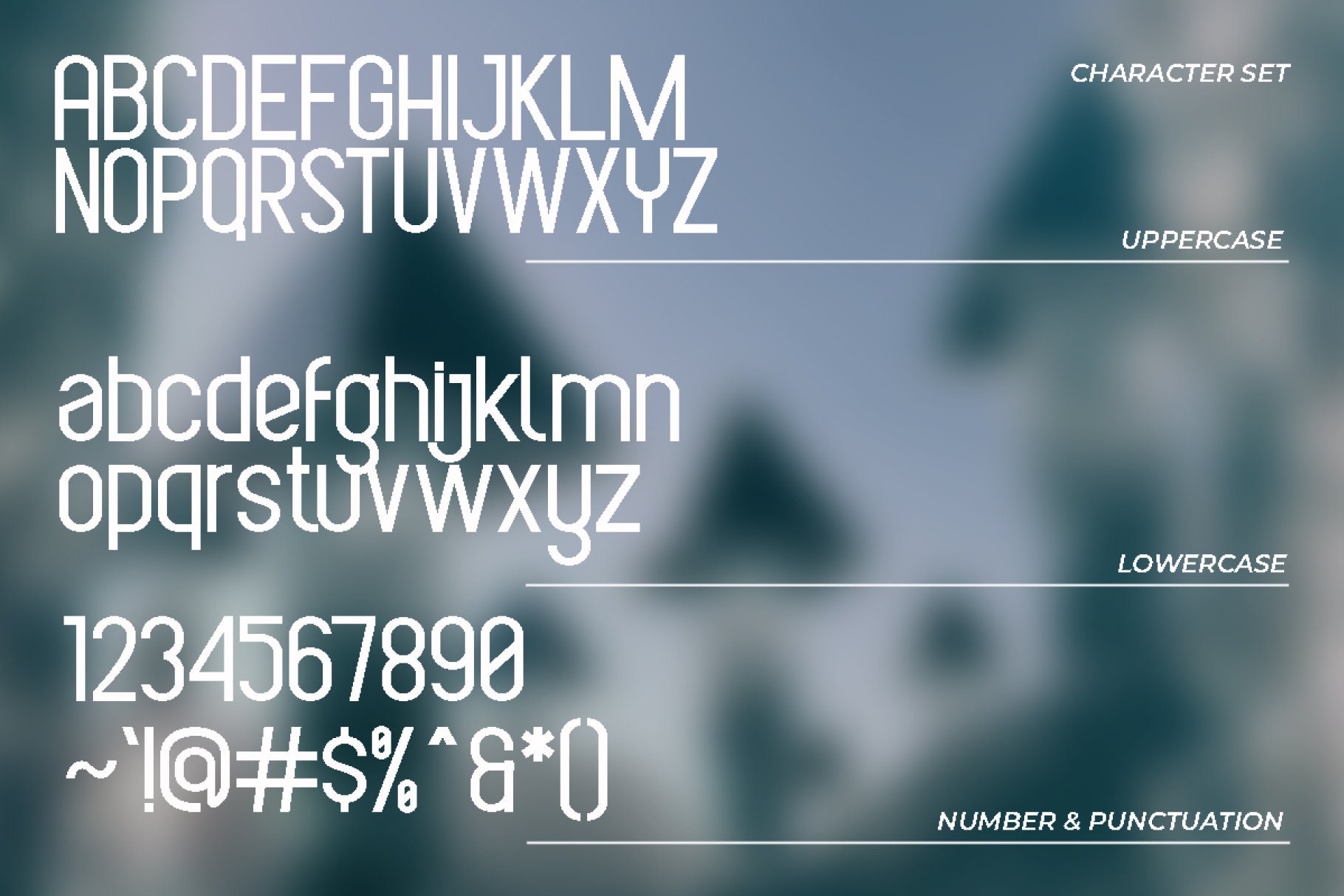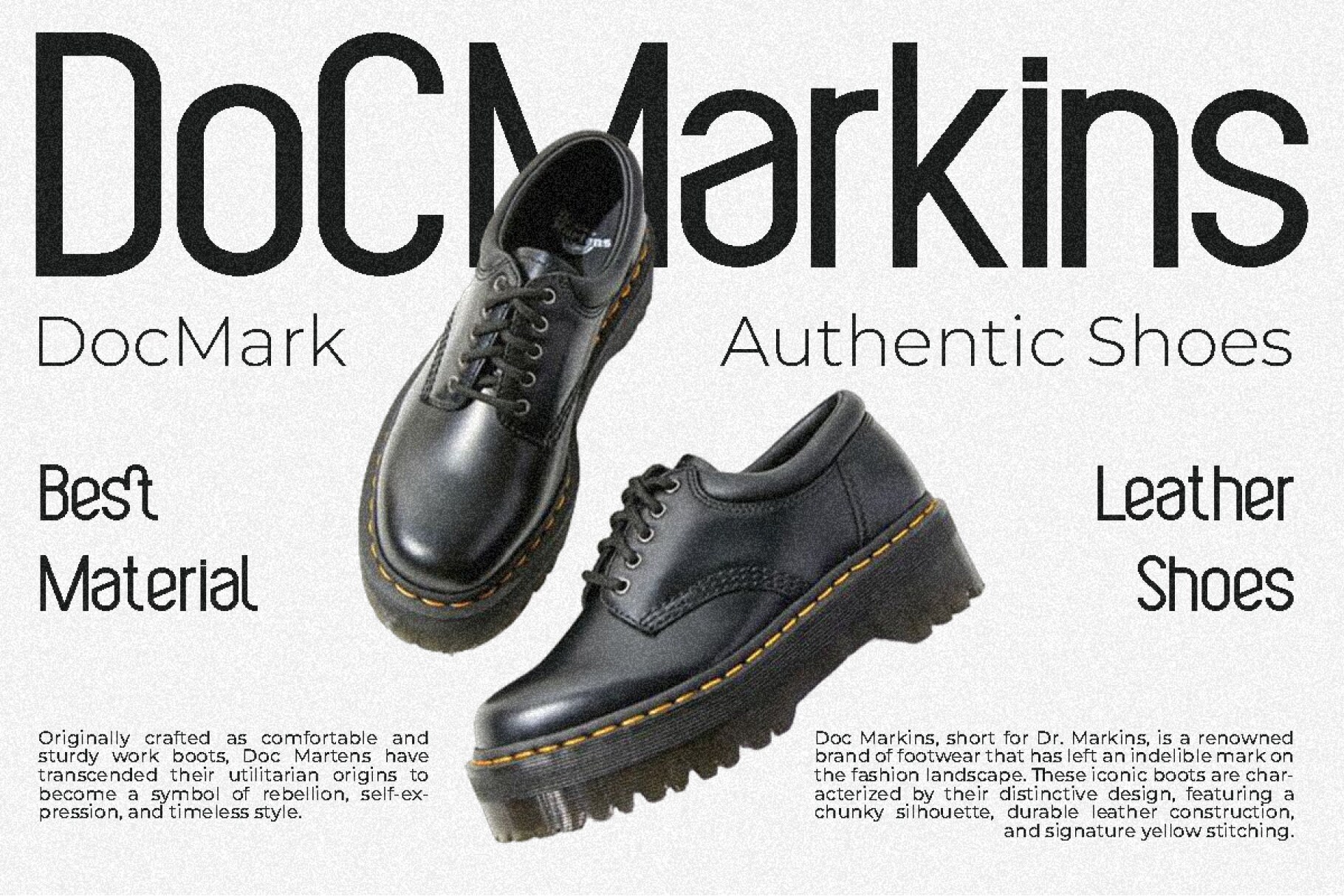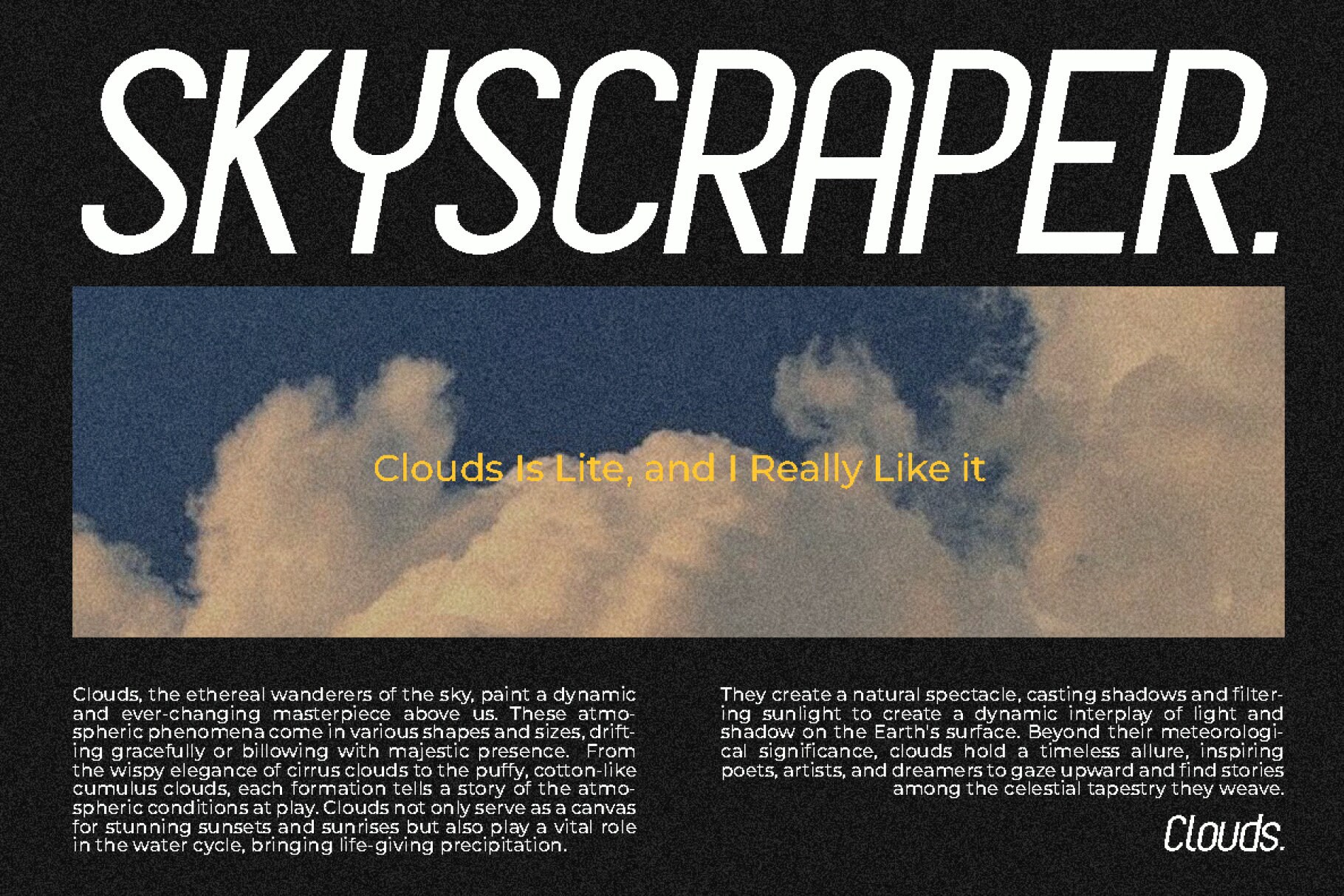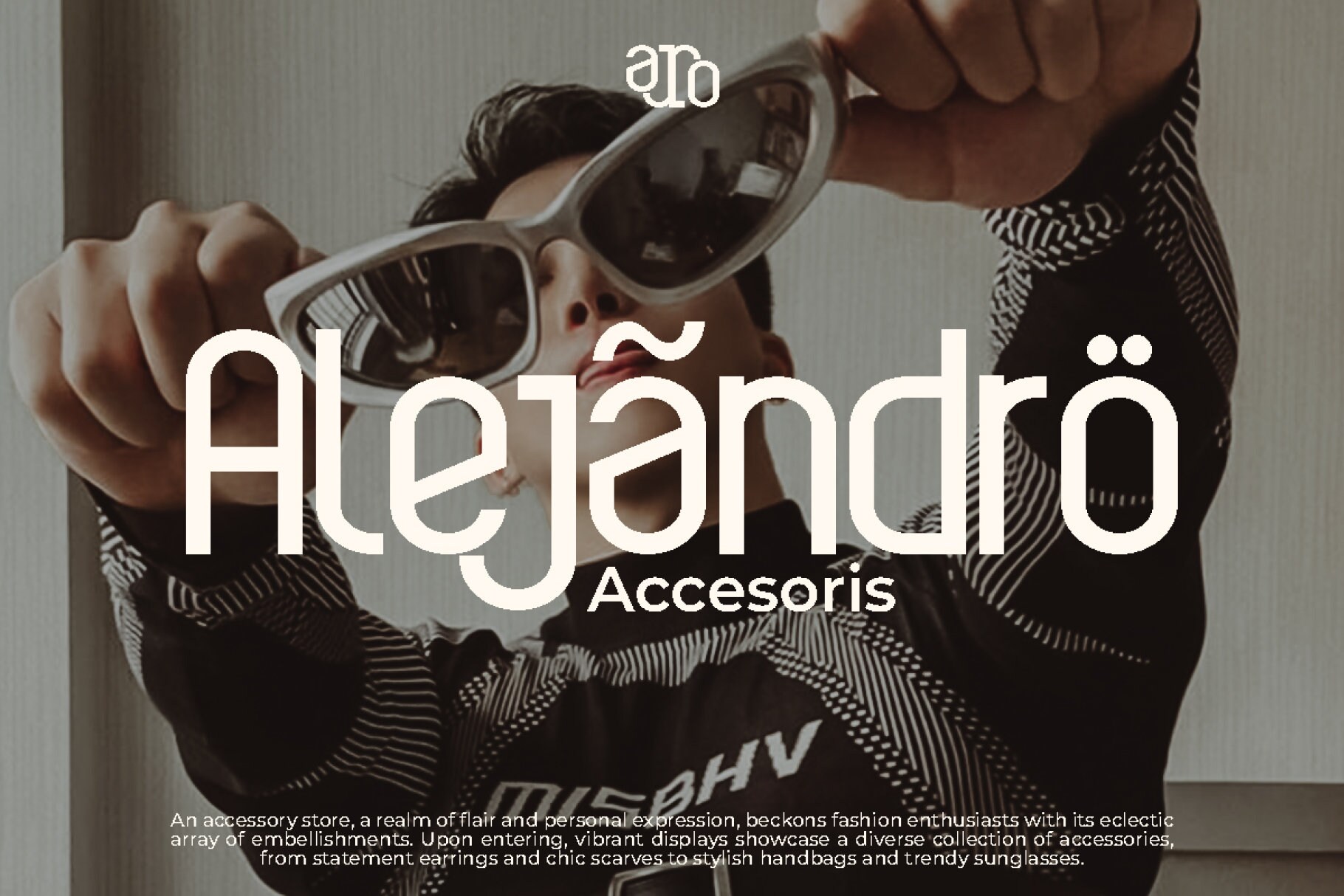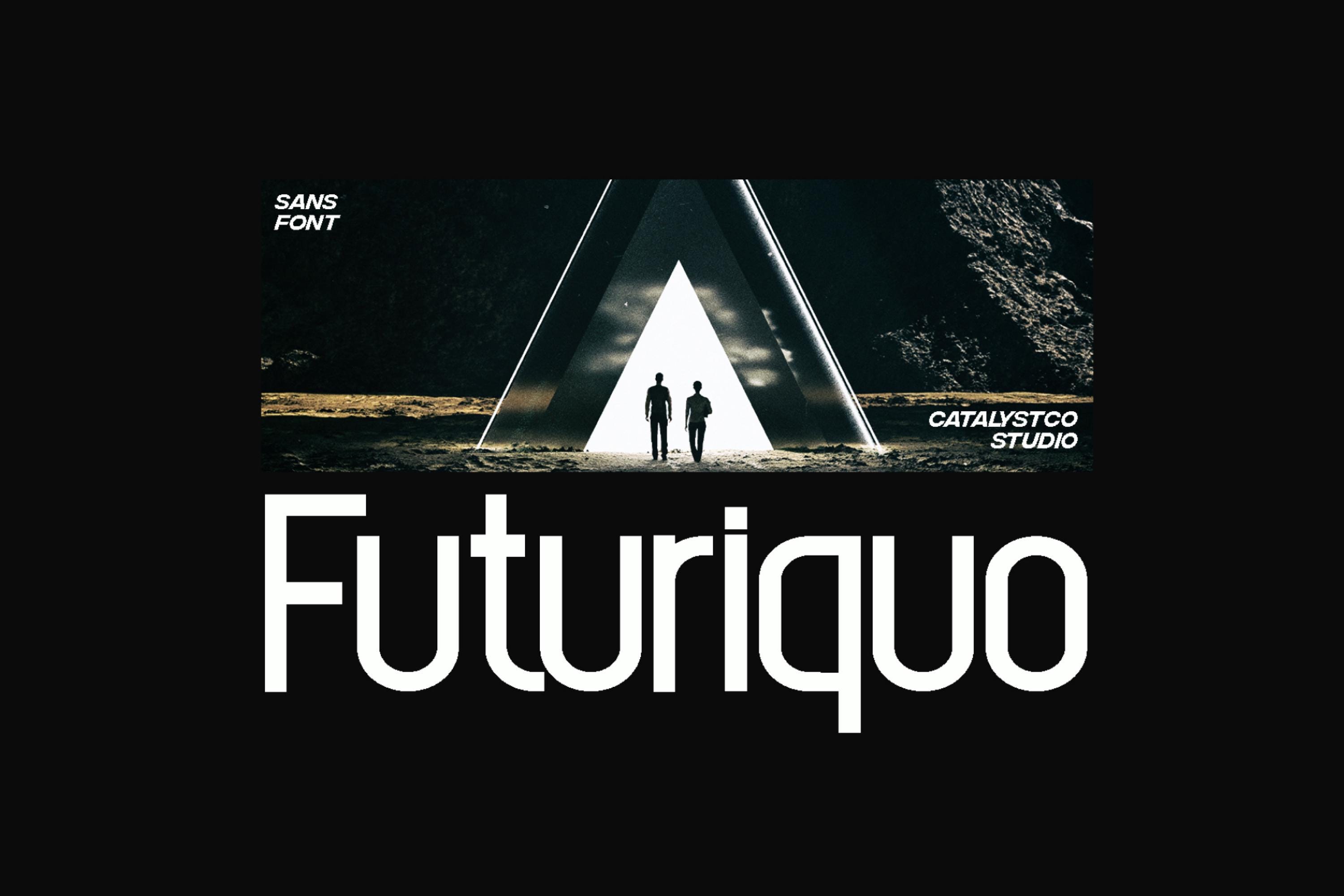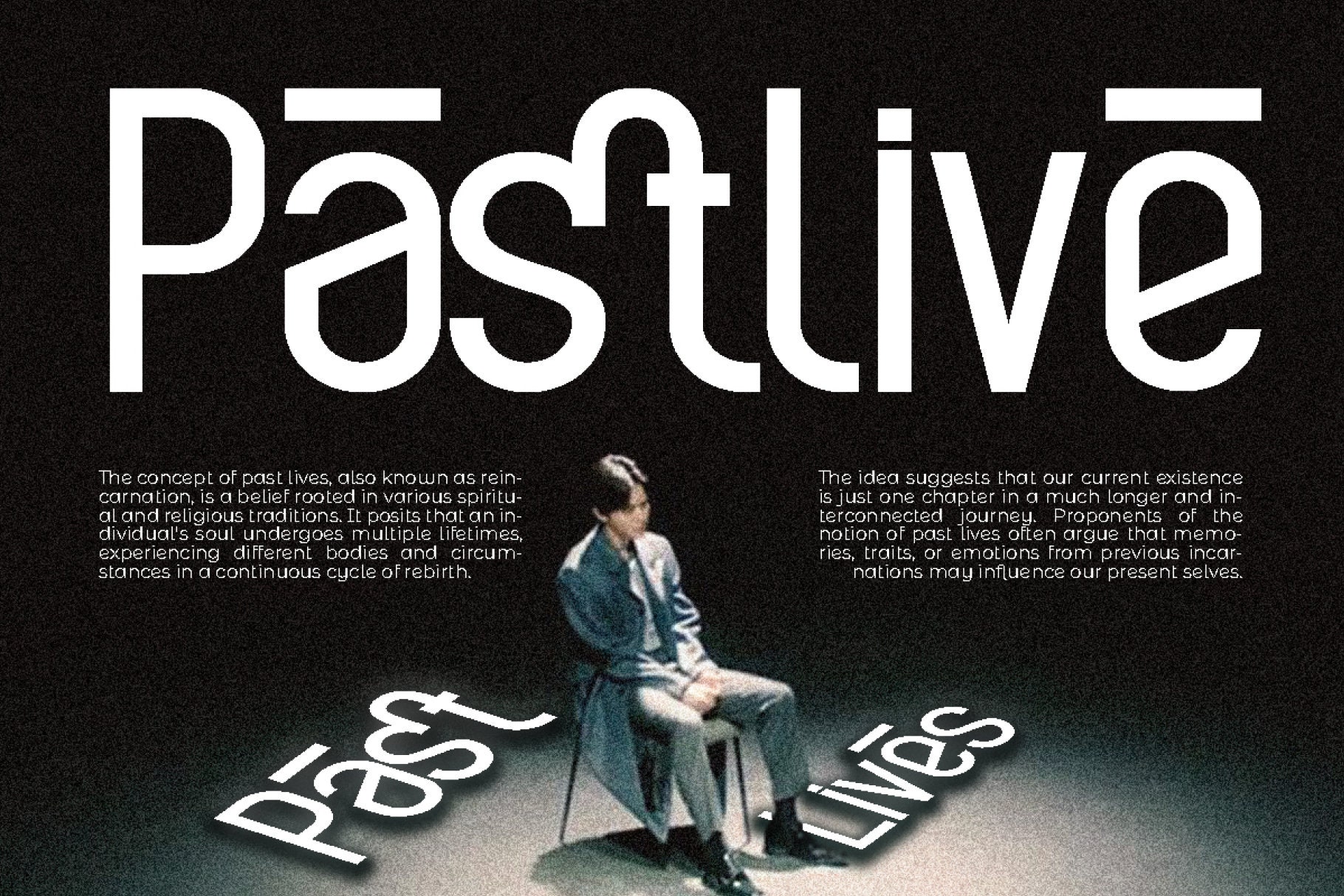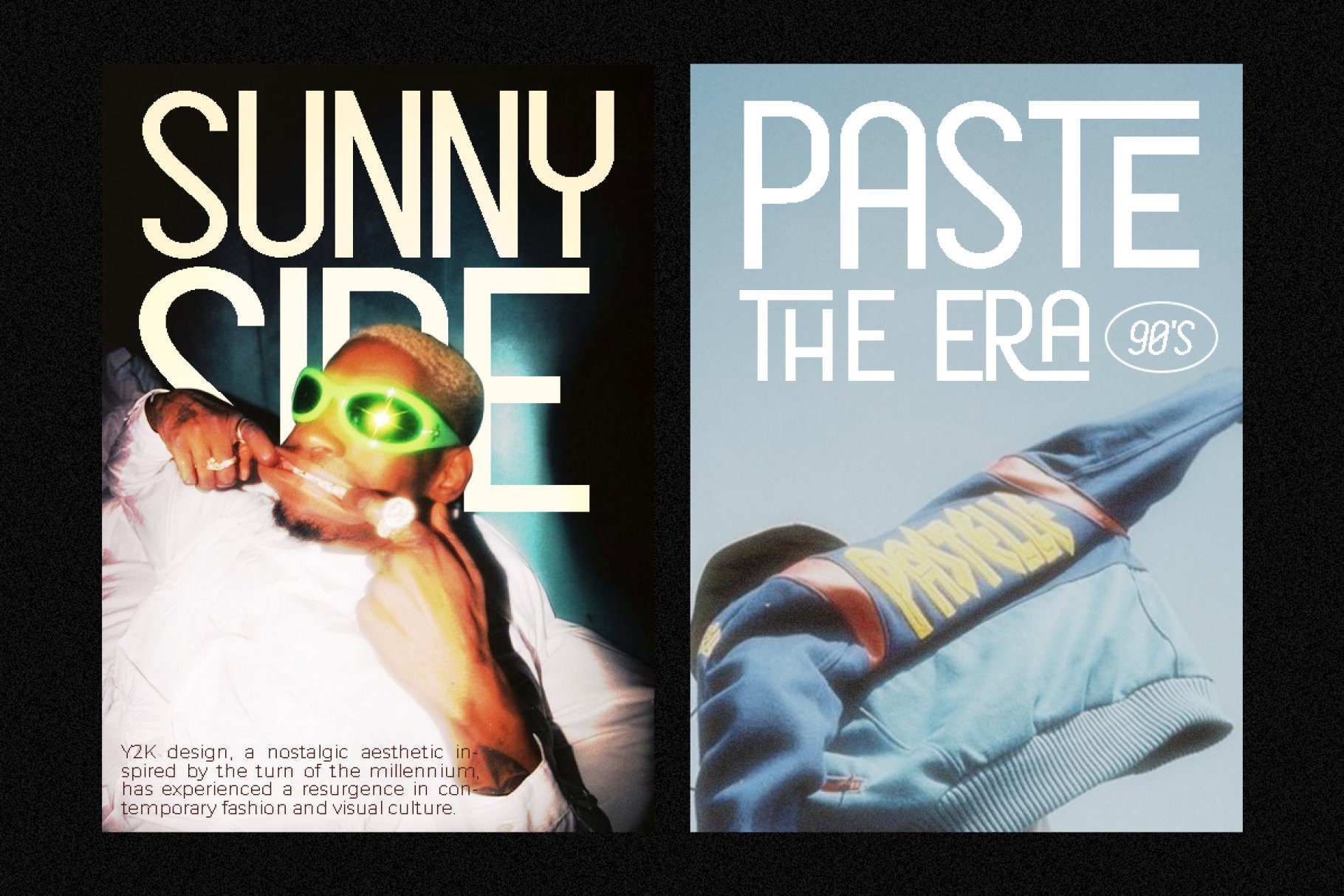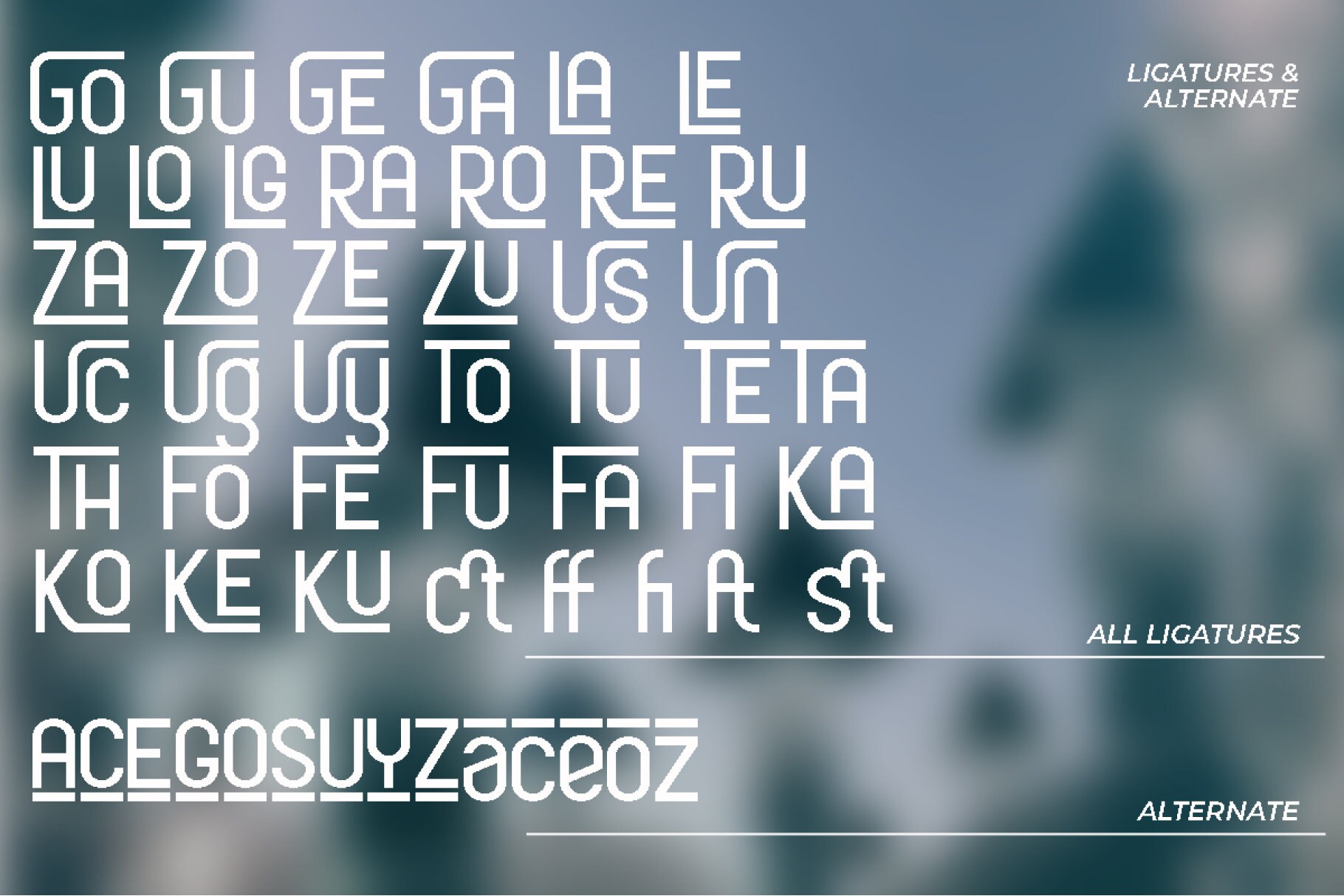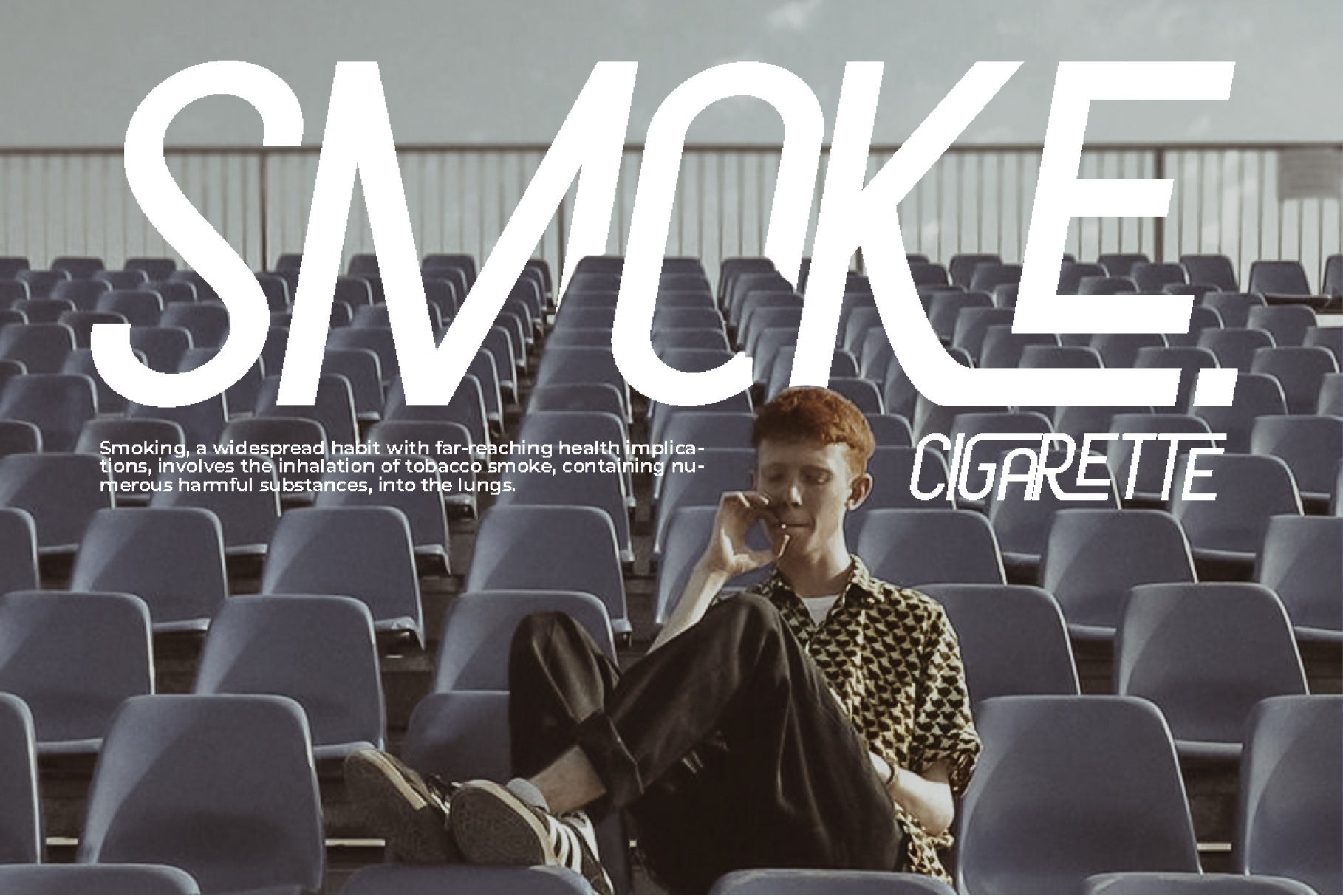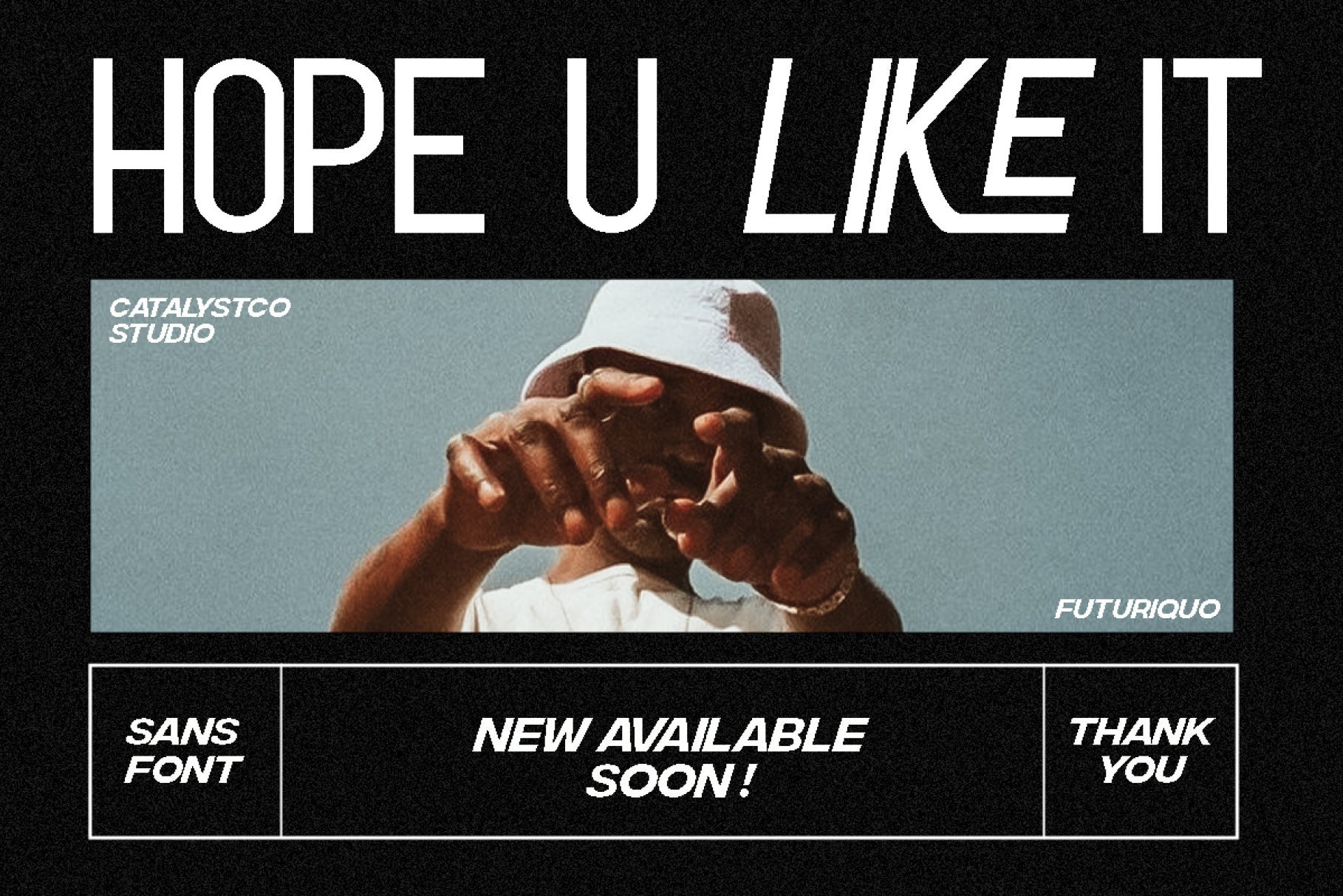
Luxurious Futuriquo Font for Professional and Contemporary Projects - Stand Out with Style
Introducing our new "Futuriquo" Modern Font, boasting an Elegant Style, perfect for branding, logos, master heads, and myriad other applications.
Features :
- Multilingual
- Uppercase alphabet A-Z
- Lowercase alphabet a-z
- Alternate Character
- Numbers 0-9
- Some punctuation